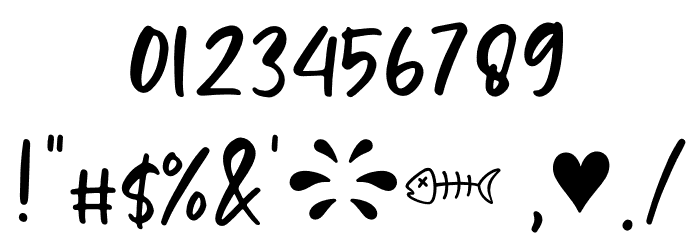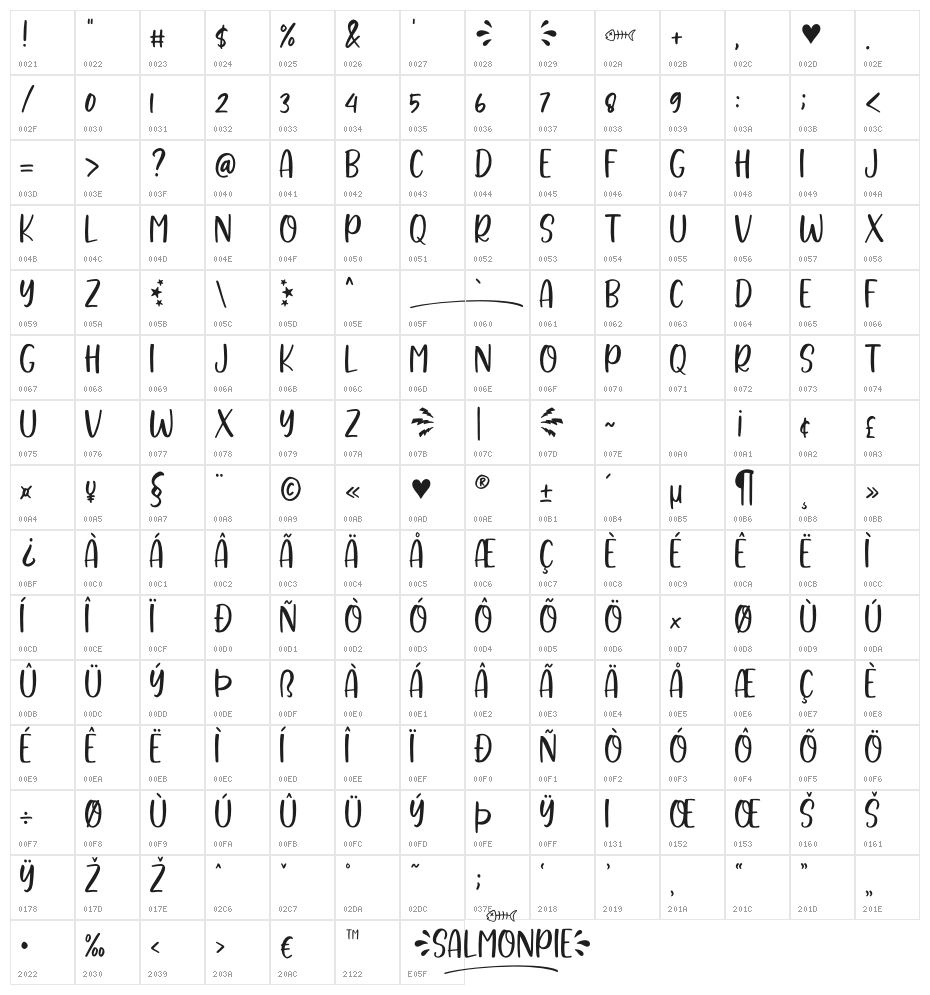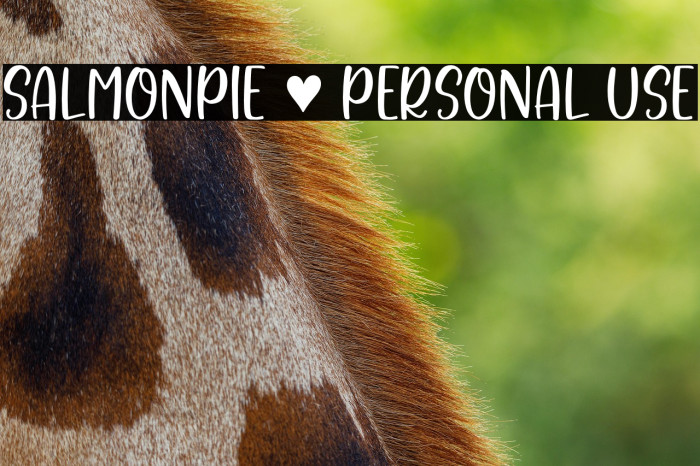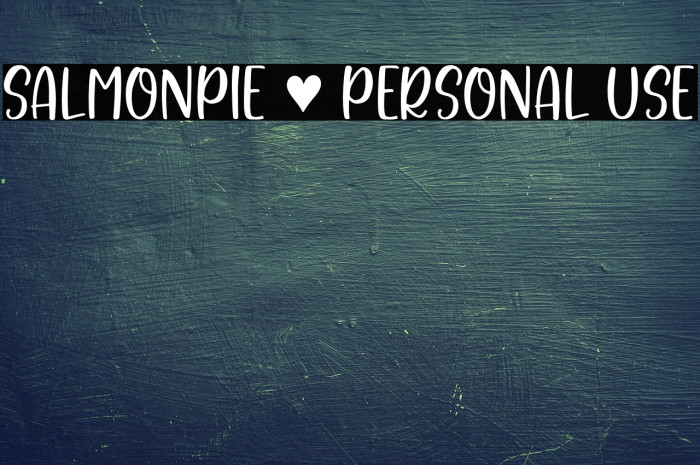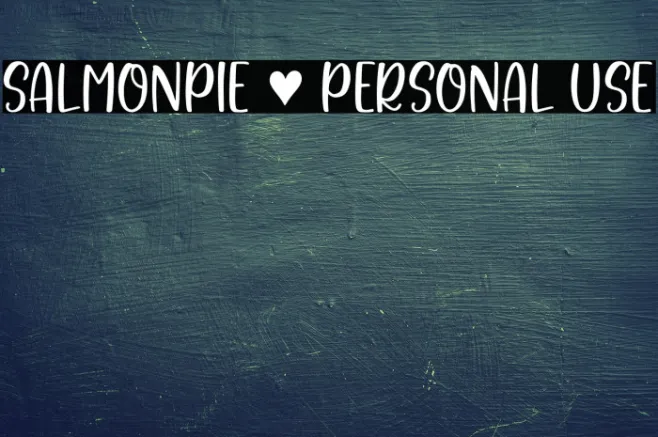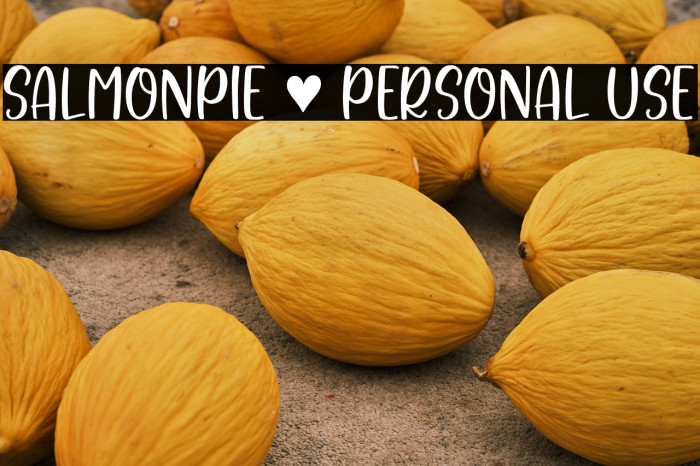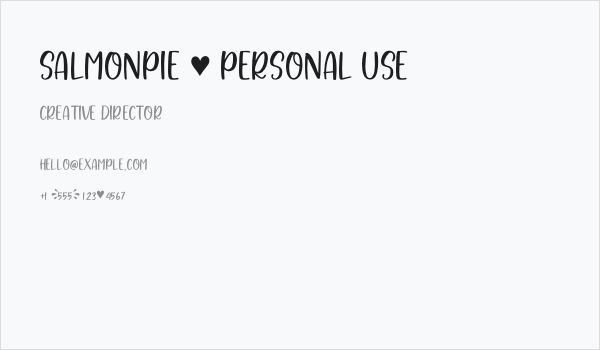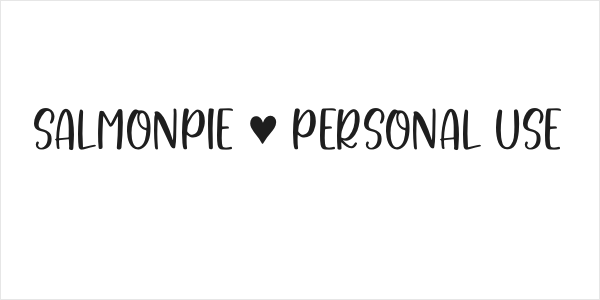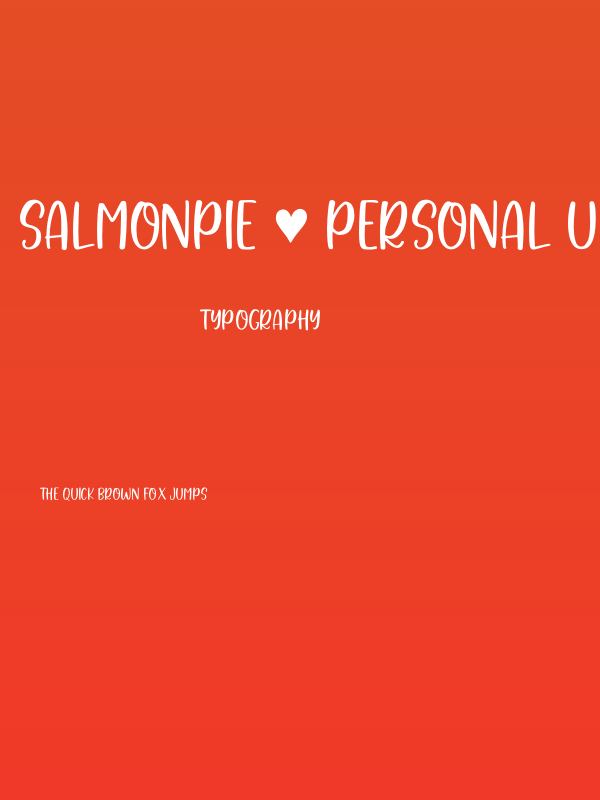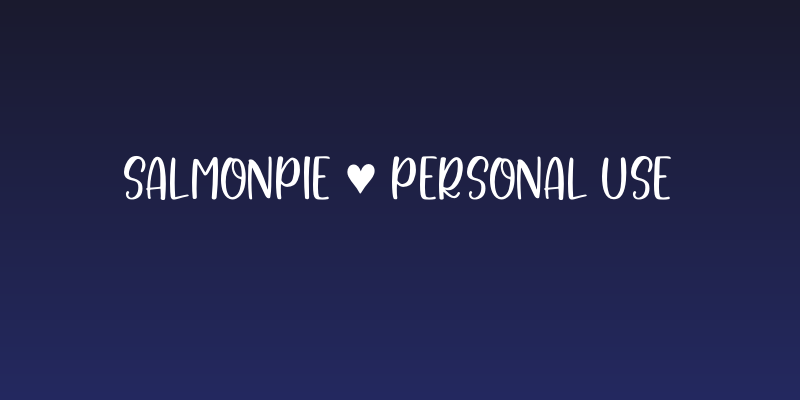
Salmonpie - Personal Use Font
Salmonpie - Personal Use Description
This font features a playful and casual handwritten style, characterized by its smooth, flowing lines and slightly irregular shapes. The uppercase and lowercase letters maintain a consistent height, creating a harmonious and balanced appearance. The strokes are moderately thick, providing a bold presence without overwhelming the design. This font includes a full set of uppercase and lowercase letters, numbers, and a variety of special characters, making it versatile for different uses. The whimsical nature of the font is enhanced by unique elements like the fishbone and heart symbols, adding a touch of personality and charm. The overall design is friendly and approachable, suitable for projects that require a personal and informal touch.
| Proposed Projects | Ideal for greeting cards, children's books, social media graphics, and playful branding. |